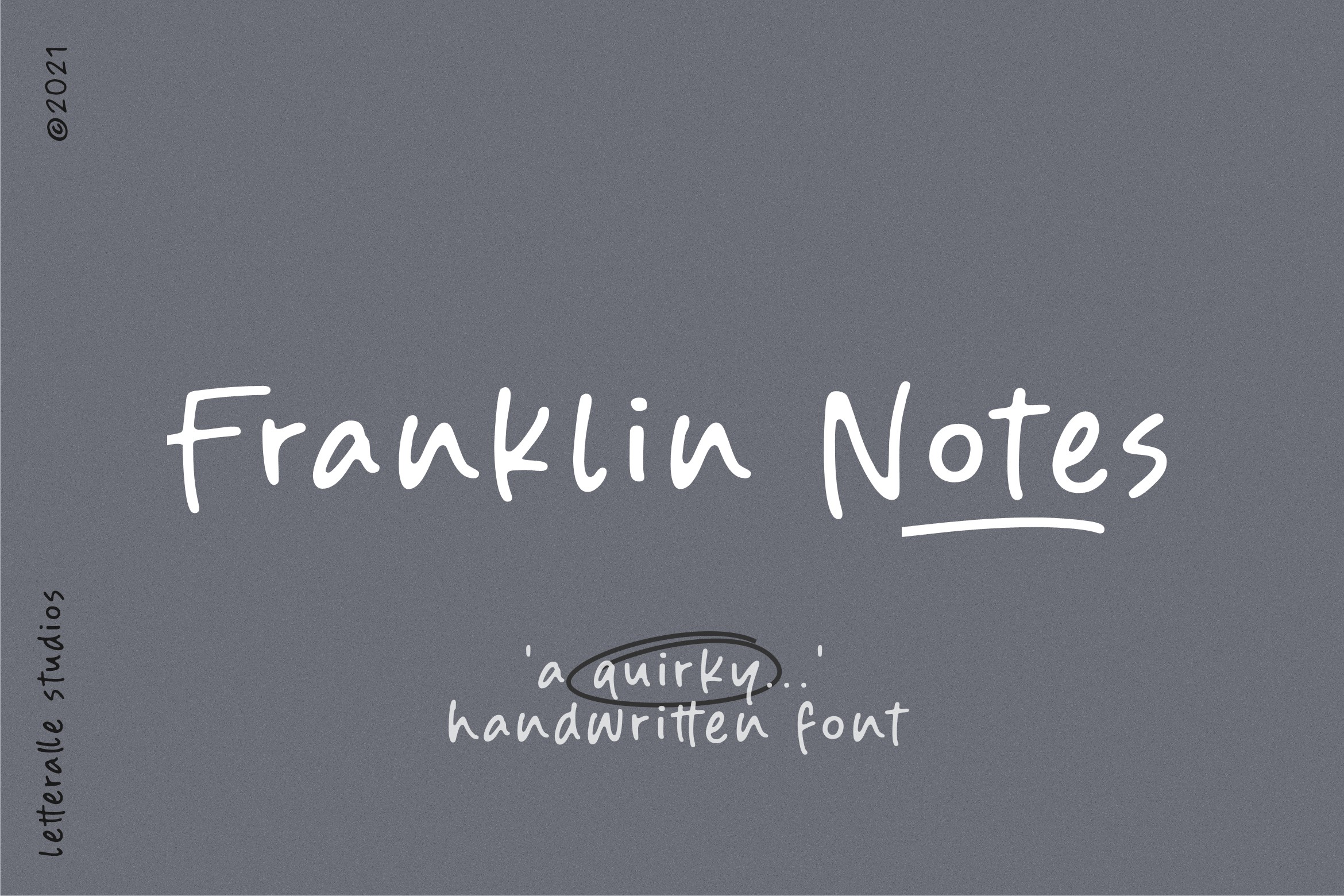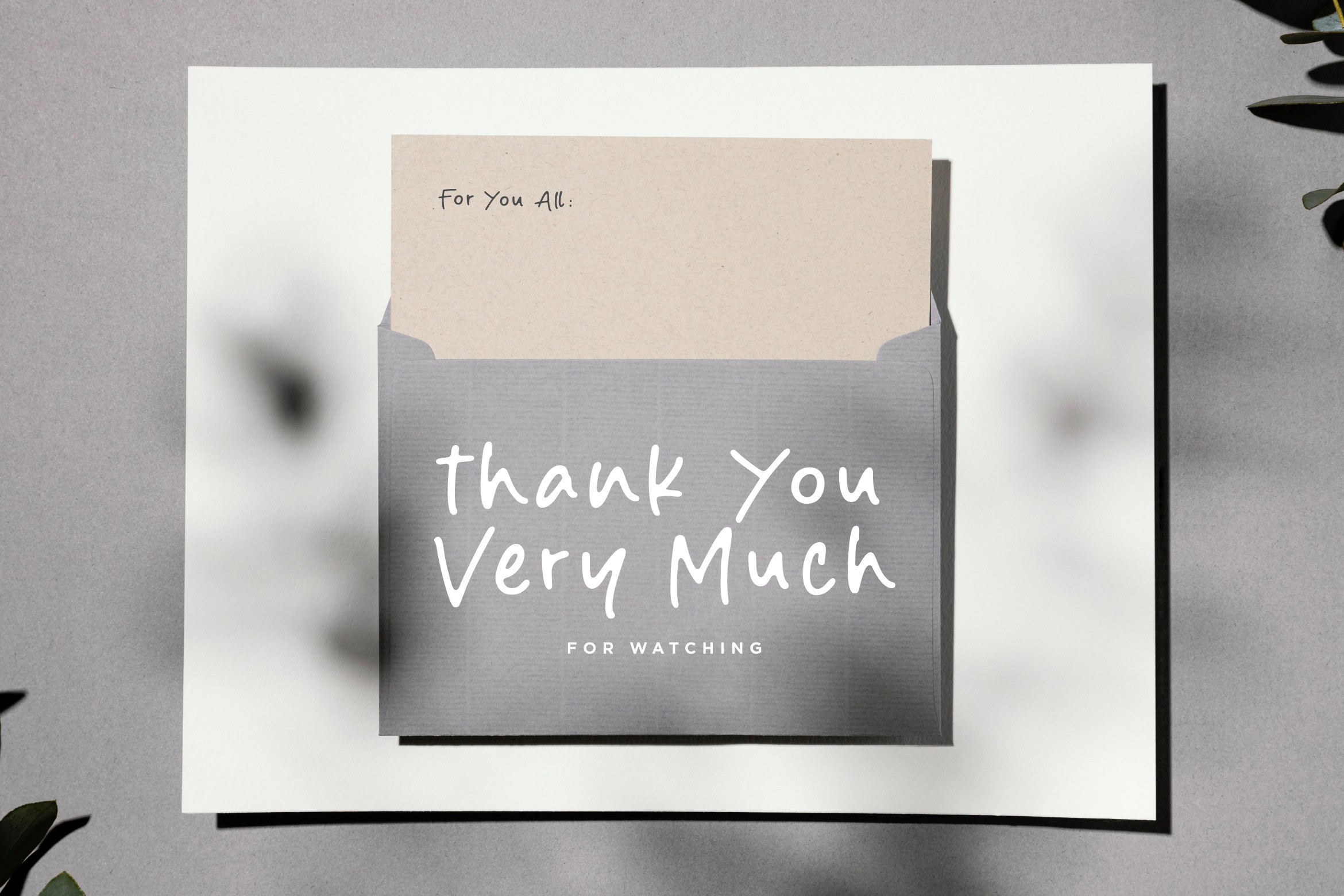
Franklin Notes Script Font
It’s a quirky handwritten font display. This font is suitable for handwriting logos, T-shirts, merchandise, quotes, social media posts, advertising, and a lot more! Franklin Notes comes with an accent language and ligatures.